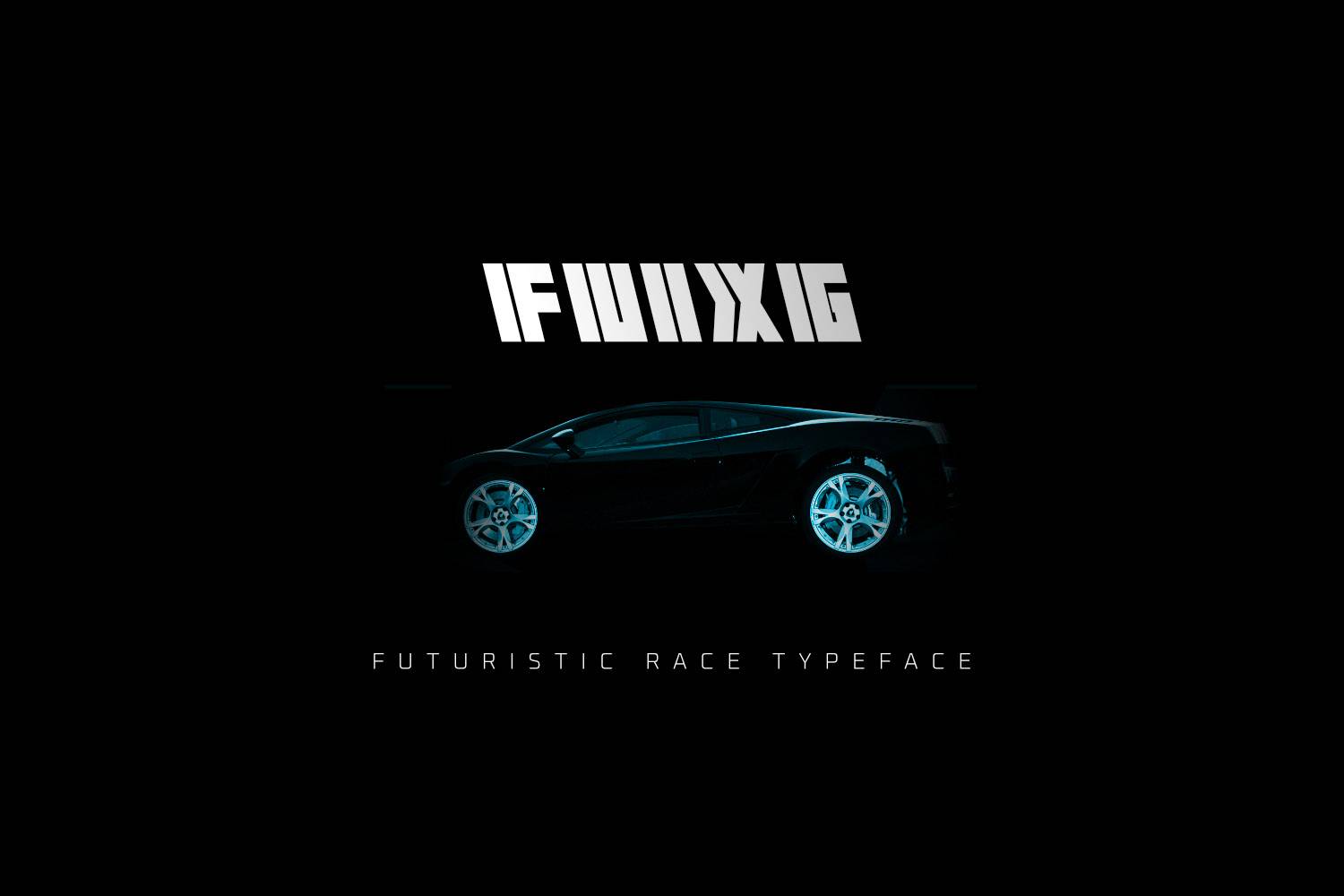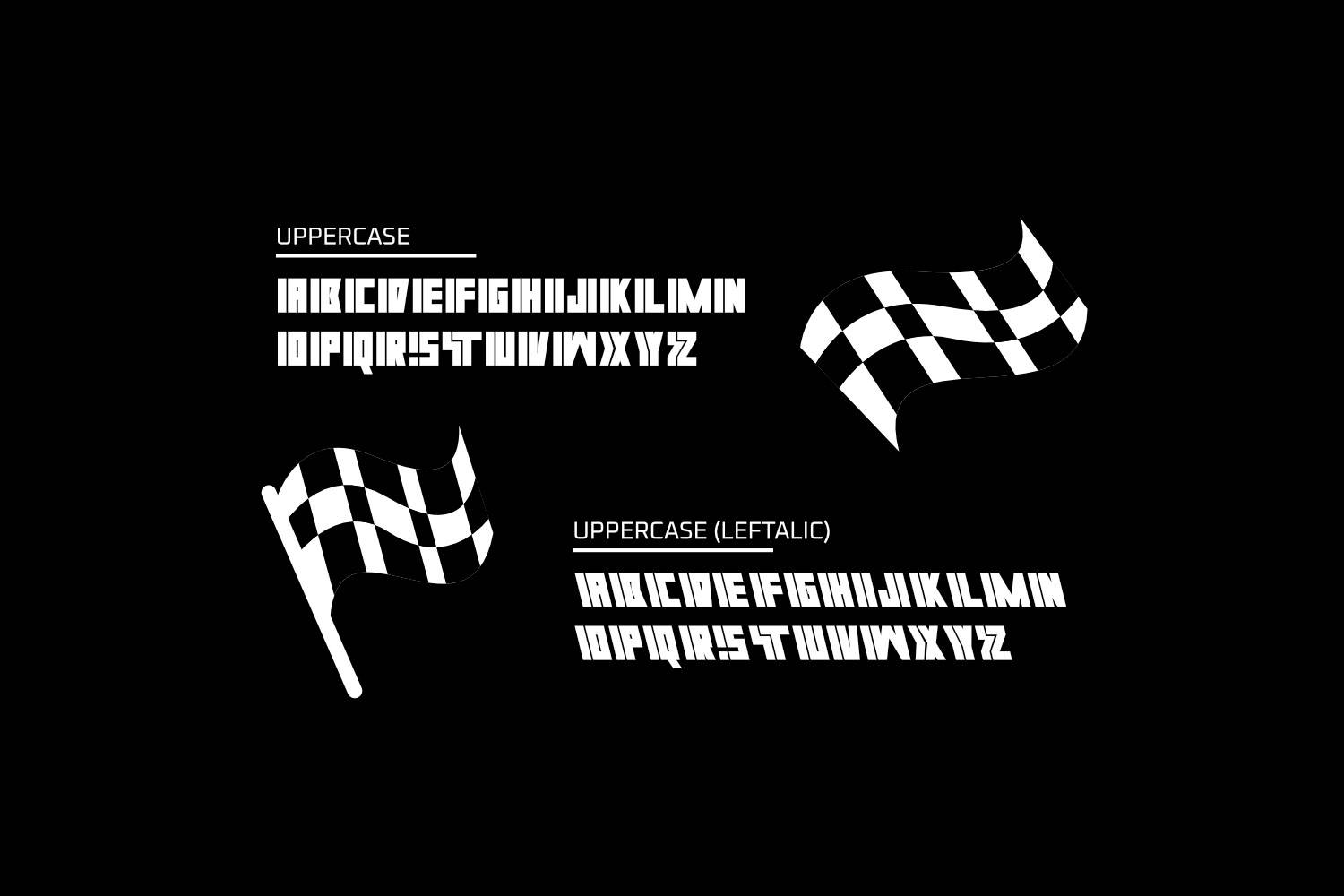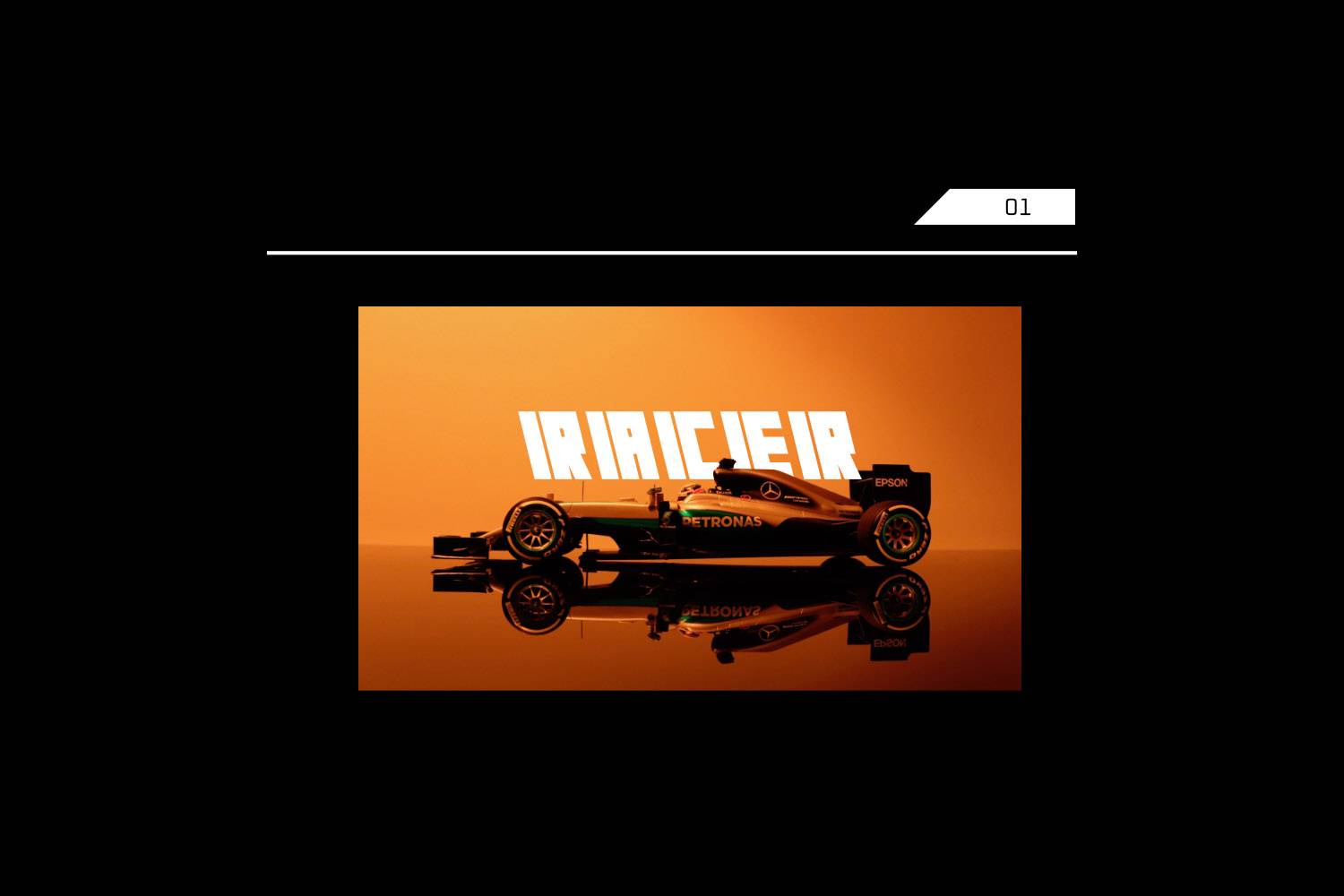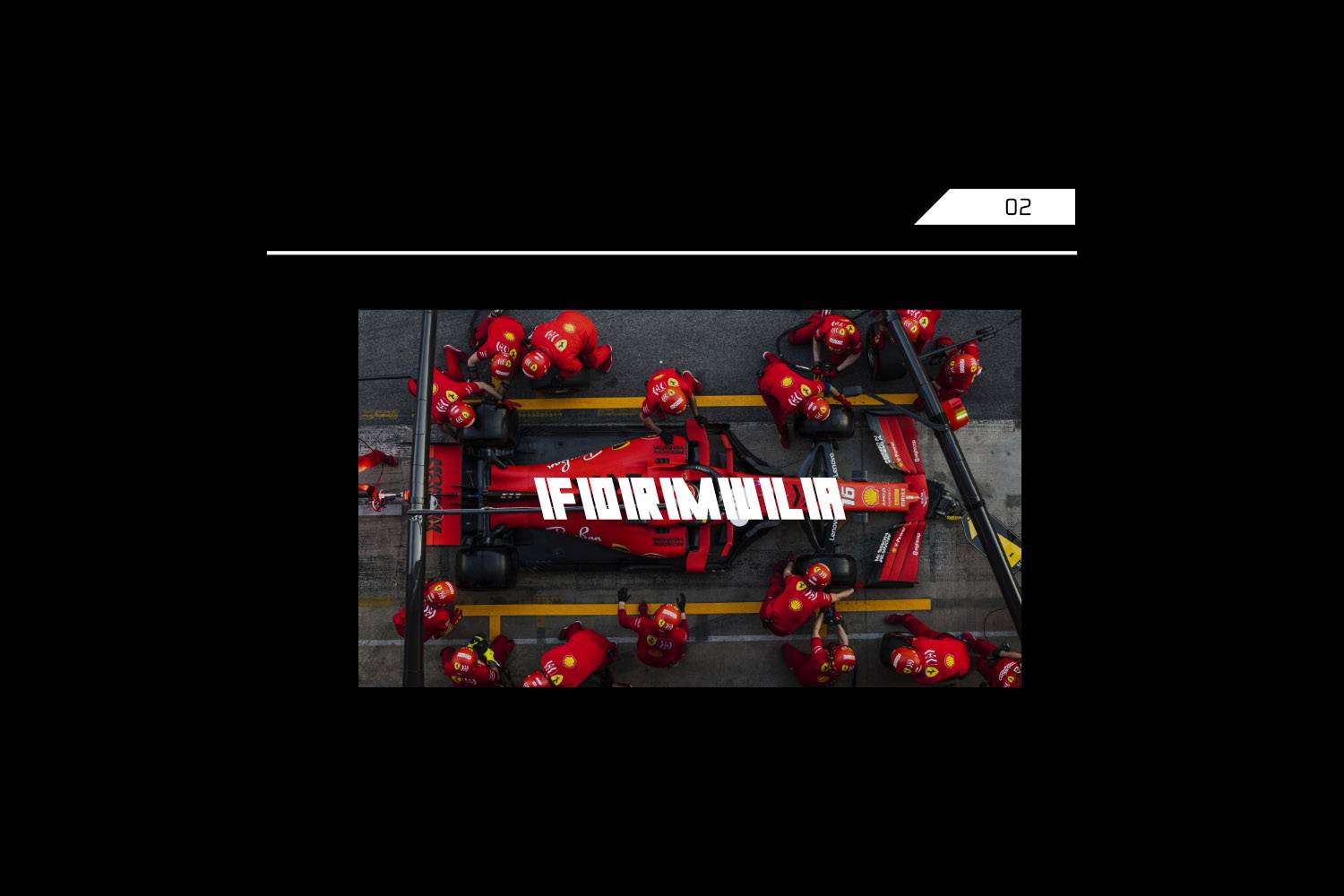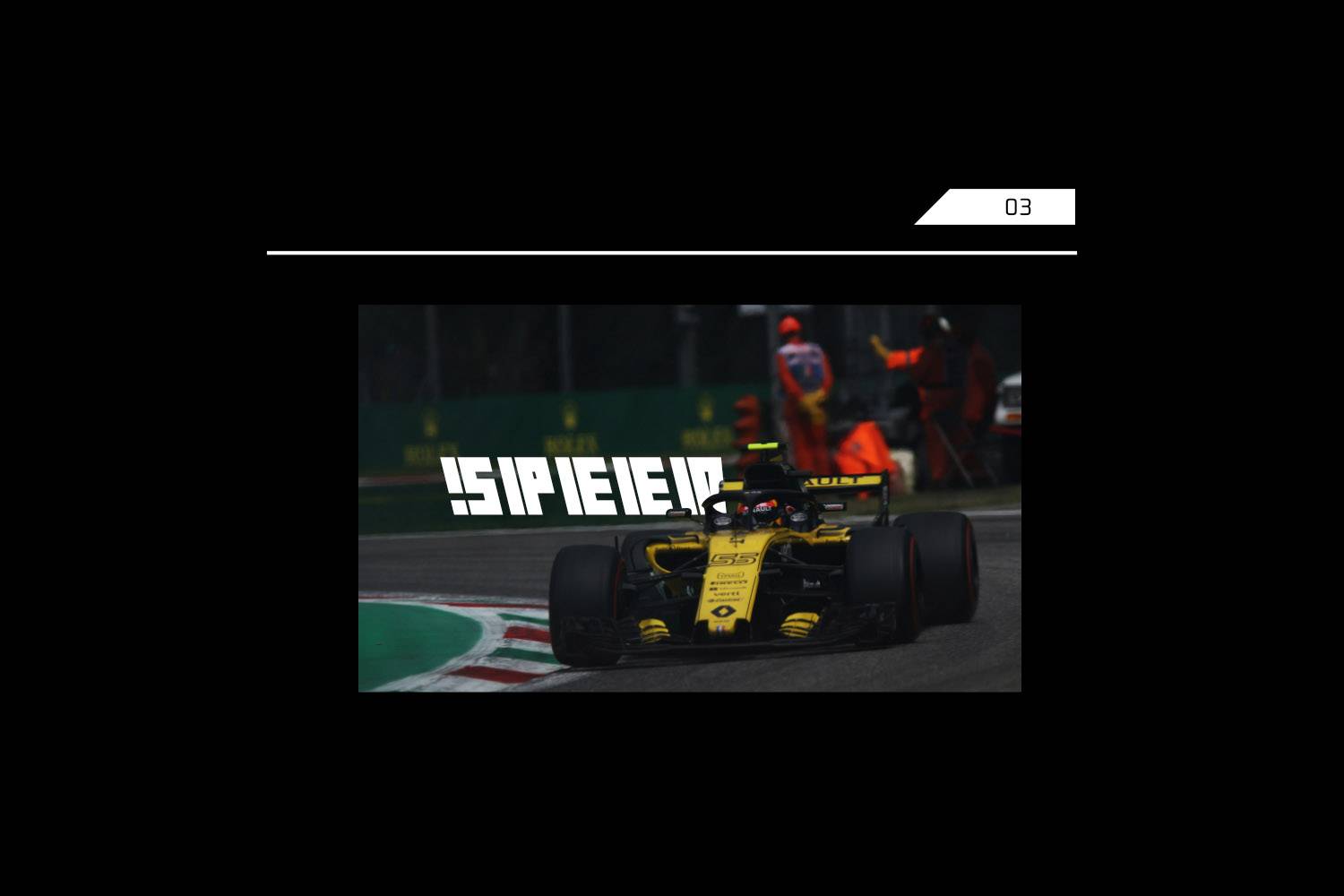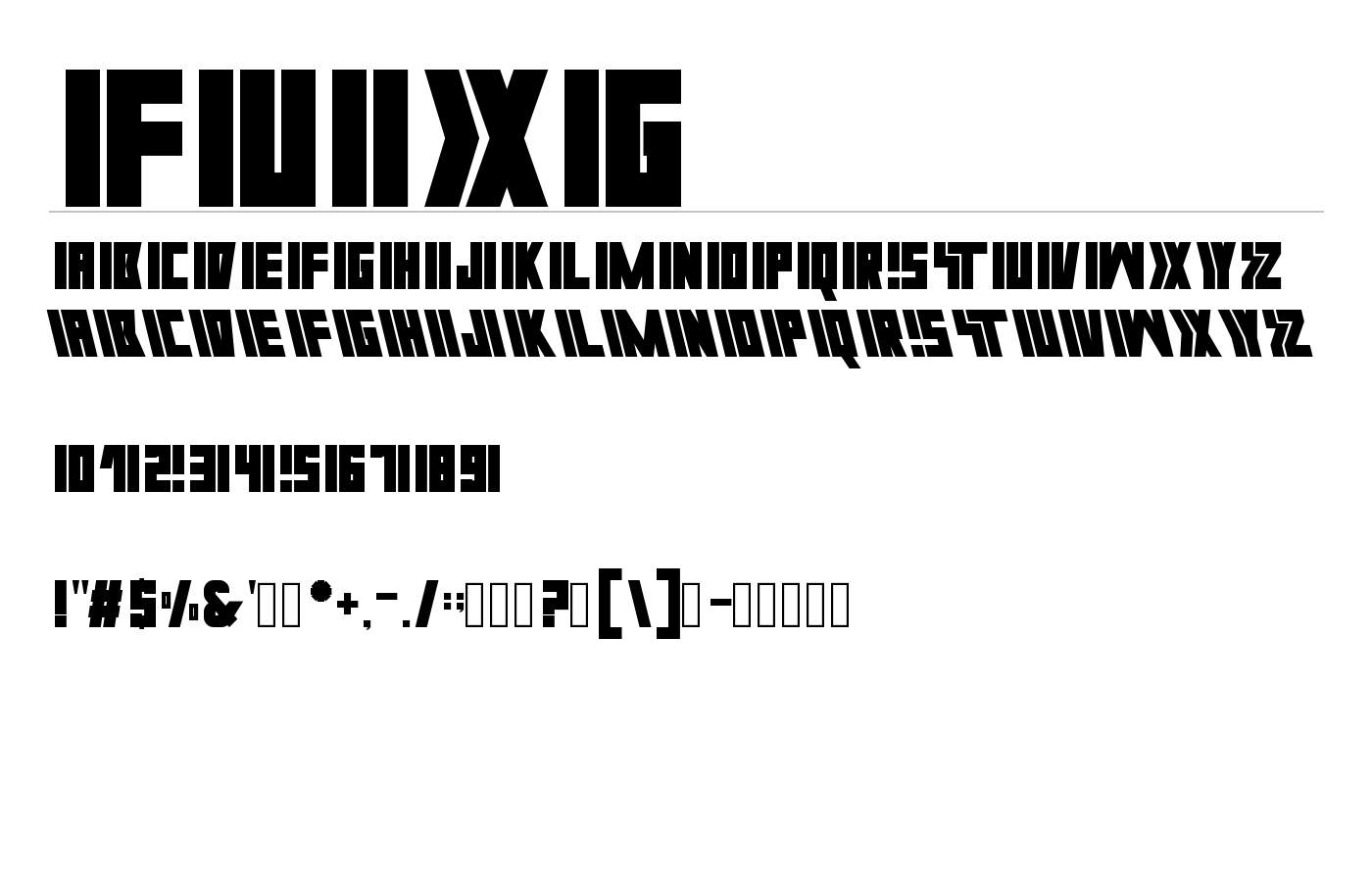
FUIXG is a bold, condensed sans serif font with a strong geometric and futuristic feel. Its sharp angles and thick strokes give it a powerful, modern look that works well for impactful headlines, logos, and branding that aims to stand out with a tech-savvy or avant-garde vibe. This font’s dramatic style makes it ideal for creative projects needing a bold statement and a unique, contemporary edge.
FUIXG Font
About FUIXG Font